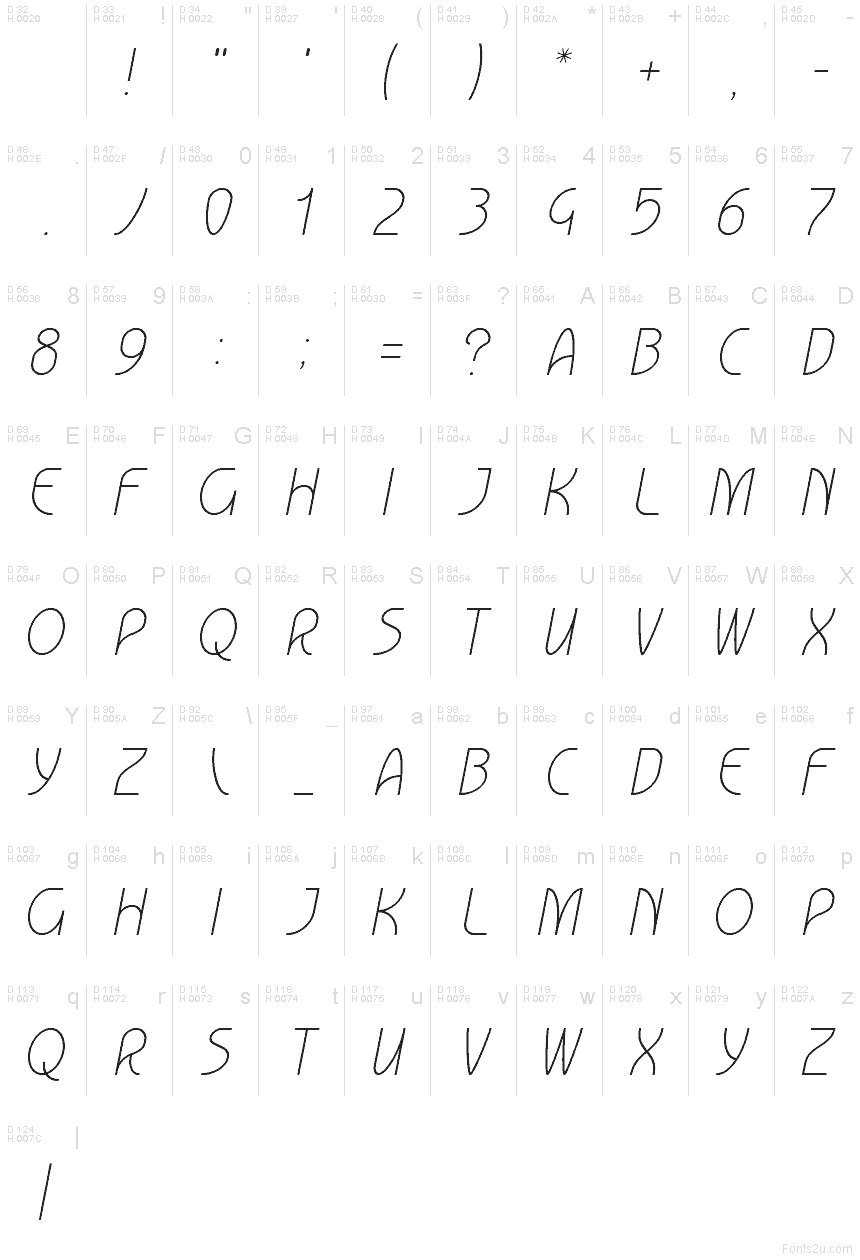
Lumierepolis Light Italic
Lumierepolis Light Italic font by GGBotNet is a free retro display typeface that looks like it’s been drawn with a single glowing wire. Its tall, narrow letters, smooth curves, and gentle italic slant give it the feel of a 70s sci‑fi title or an art‑deco marquee stripped down to a clean outline. The strokes are whisper-thin yet controlled, creating an airy rhythm that feels both futuristic and nostalgic at the same time.
Using Lumierepolis Light Italic, you get a distinctive voice for logotypes, neon-inspired posters, editorial headlines, event branding, album covers, and digital titles. This free font shines when it’s set large and given room to breathe, where the sweeping curves and tight spacing can really show off. Pair it with a simple geometric sans or a minimal grotesk for body text to keep the focus on Lumierepolis’s graceful, wireframe personality.